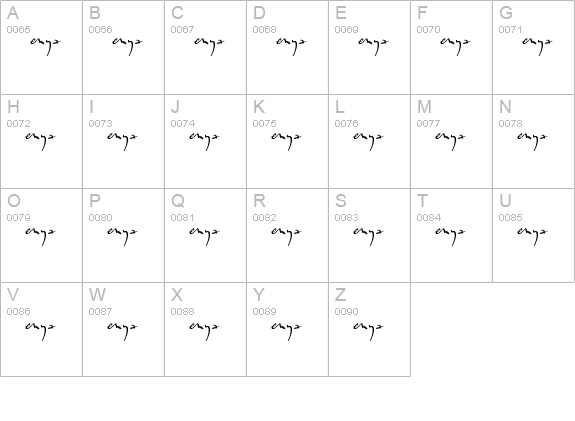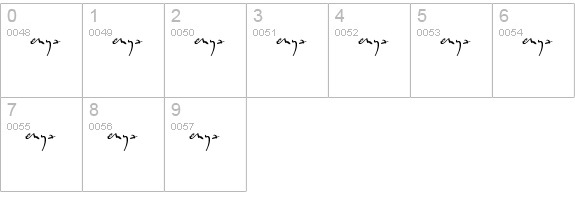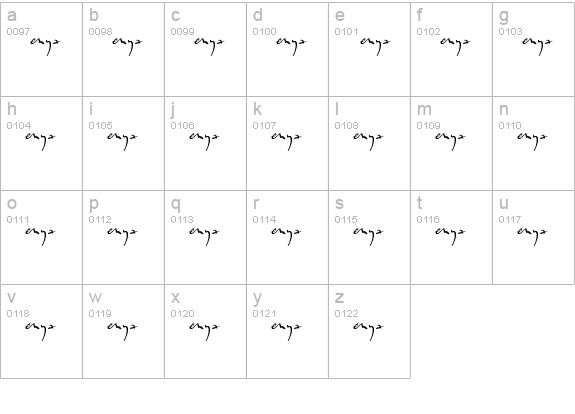
Enyalogo Font Details
Enyalogo font is a stunning display typeface that exudes elegance and sophistication. With its sleek lines and modern design, Enyalogo is perfect for adding a touch of class to any project. This versatile font can be used for a wide range of applications, from logos to headlines to branding materials. The best part? Enyalogo font is completely free to download at FontsMarket.com. Whether you're a designer looking to elevate your work or a business owner in need of a polished look, Enyalogo has you covered. Don't miss out on the opportunity to enhance your projects with this beautiful and stylish font. Download Enyalogo today and take your designs to the next level!